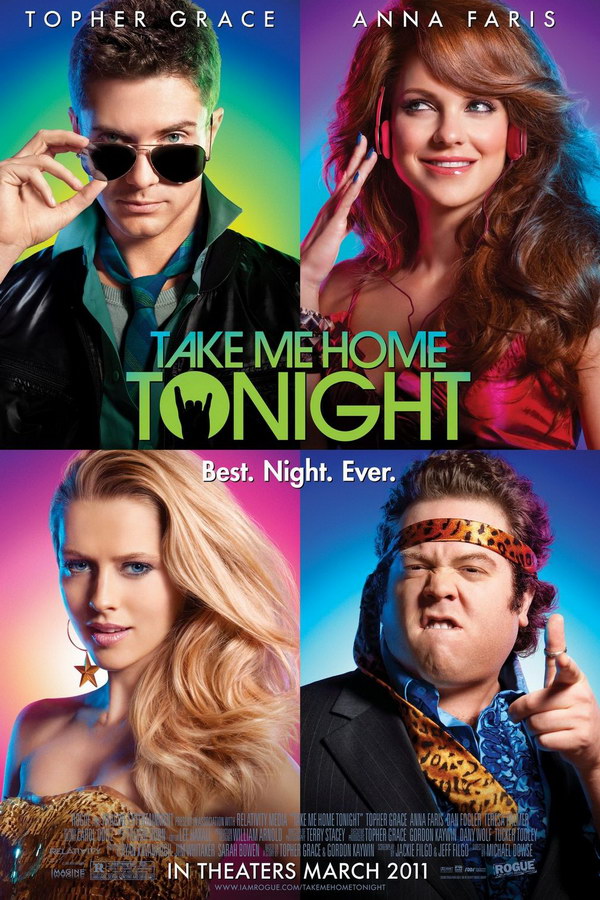
Take Me Home Tonight Font
The movie title on the poster resembles Avant Garde Gothic Medium font, a geometric typeface inspired by the logo of the Avant Garde magazine. This commercial font can be purchased here.